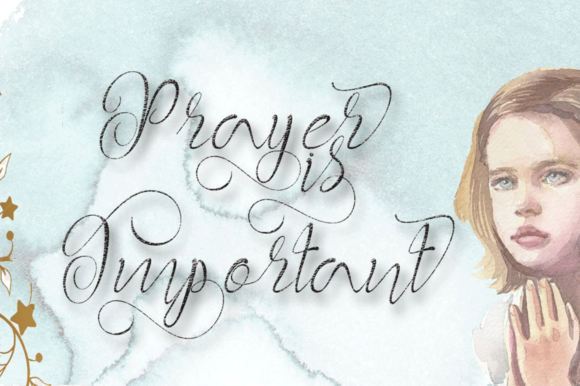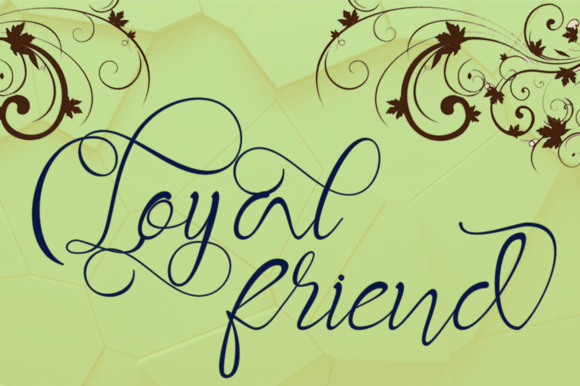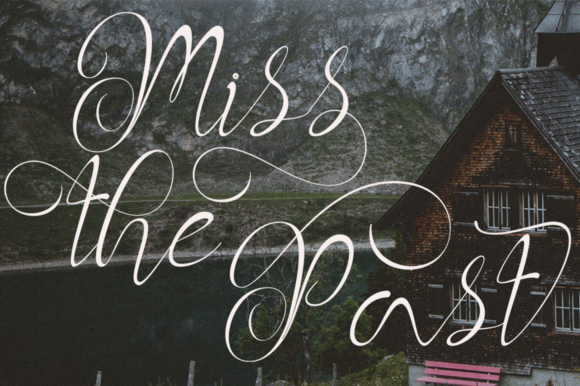
Introduction to Khadijah Font
Khadijah is a classy and elegant calligraphy font.
It can be used for various purposes, such as logos, wedding invitations, t-shirts, letterhead, signage, posters and more Khadijah is PUA encoded which means you can access all of the glyphs and swashes with ease.